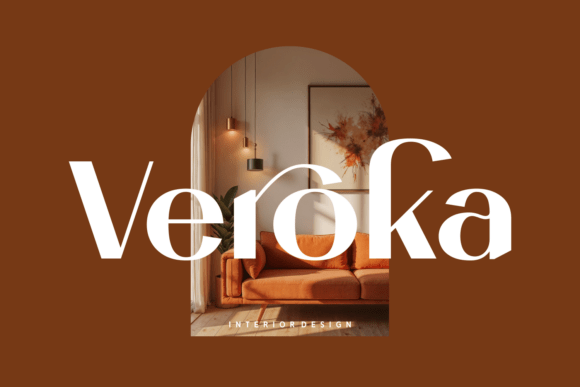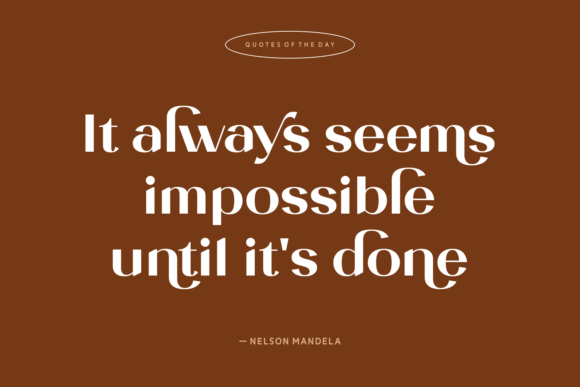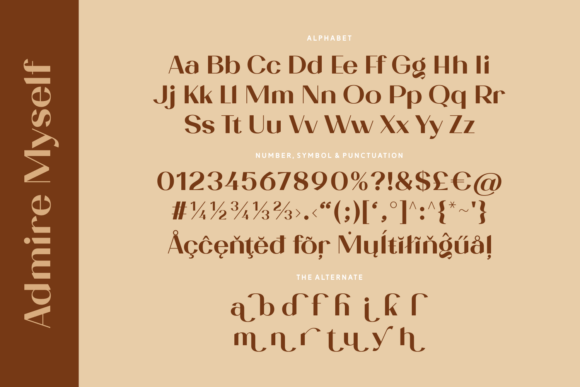
Introducing Admire Myself Font: Elevate Your Designs with Elegance
Are you on the hunt for a font that exudes sophistication and modernity? Look no further than the Admire Myself font, a stunning modern sans serif font that’s perfect for high-end branding, logos, and magazine headlines. In this article, we’ll dive into the features and benefits of this beautiful font, and explore how it can elevate your designs to the next level.
A Unique and Elegant Font
The Admire Myself font is a one-of-a-kind, high-contrast sans serif font that boasts elegant curves and alternate characters. Its unique design makes it stand out from other sans serif fonts, giving it a distinctive and luxurious feel. The font’s high contrast adds a touch of sophistication, making it perfect for designs that require a bit of elegance and refinement.
Perfect for High-End Branding and Design
Whether you’re working on a branding project, logo design, or magazine headline, the Admire Myself font is an excellent choice. Its modern and sleek design makes it perfect for businesses and designers who want to create a high-end look. The font’s versatility also makes it suitable for a wide range of design applications, from print to digital.
Warm Color Palette for Late Summer and Autumn
The promotional image for Admire Myself features a warm color palette that’s beautifully suited for the late summer and autumn seasons. The palette’s earthy tones and rich colors evoke a sense of coziness and sophistication, making it perfect for designs that require a warm and inviting feel. Whether you’re designing a brochure, poster, or social media graphic, this color palette is sure to impress.
Key Features of Admire Myself Font
- High-contrast sans serif font: The Admire Myself font features a unique high-contrast design that adds a touch of elegance and sophistication.
- Elegant curves and alternate characters: The font’s elegant curves and alternate characters make it perfect for designs that require a bit of refinement and luxury.
- Modern and sleek design: The Admire Myself font has a modern and sleek design that’s perfect for high-end branding, logos, and magazine headlines.
- Warm color palette: The font’s warm color palette is beautifully suited for the late summer and autumn seasons, making it perfect for designs that require a cozy and inviting feel.
Tips for Using Admire Myself Font
Here are a few tips for using the Admire Myself font in your designs:
- Use it as a headline font: The Admire Myself font is perfect for headlines and titles, where its elegant curves and high-contrast design can really shine.
- Pair it with a sans serif font: For body text, consider pairing the Admire Myself font with a sans serif font to create a nice contrast and add visual interest.
- Experiment with colors: While the warm color palette is beautiful, don’t be afraid to experiment with different colors to find the perfect fit for your design.
In conclusion, the Admire Myself font is a stunning modern sans serif font that’s perfect for designers and crafters who want to elevate their designs to the next level. Its unique high-contrast design, elegant curves, and alternate characters make it a standout font that’s sure to impress. Whether you’re working on a branding project, logo design, or magazine headline, the Admire Myself font is an excellent choice.